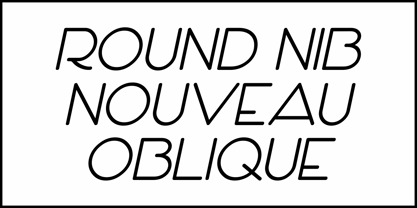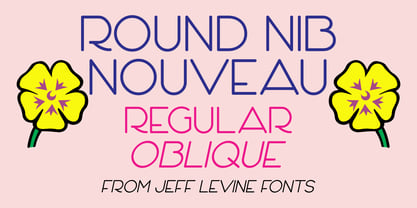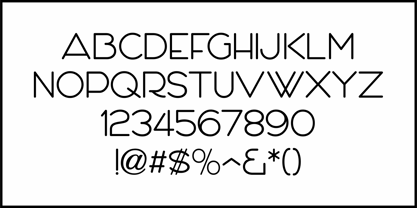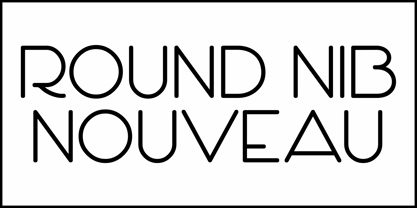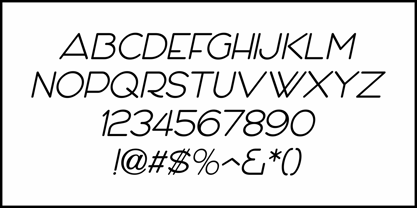
Round Nib Nouveau JNL
by Jeff Levine
The January 1, 1922 issue of The Film Daily carried an advertisememt for the film "Little Lord Fauntleroy".
The cast credits within the ad were hand lettered with a round nib pen, and the resulting Art Nouveau-influenced sans serif has now been recreated digitally as Round Nib Nouveau JNL in both regular and oblique versions.
Designers: Jeff Levine
Foundry: Jeff Levine